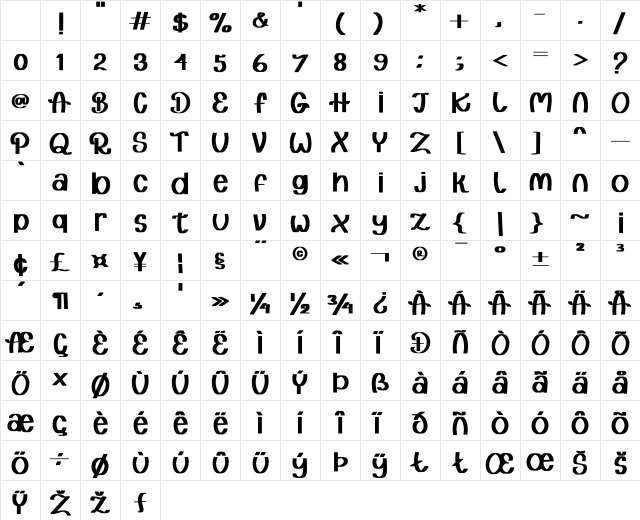
Complete Gift Love Regular glyph index. Displaying only characters natively supported by Gift Love Regular font.
Gift Love is a composed and adaptable typeface that performs quietly and consistently across a wide range of design contexts.